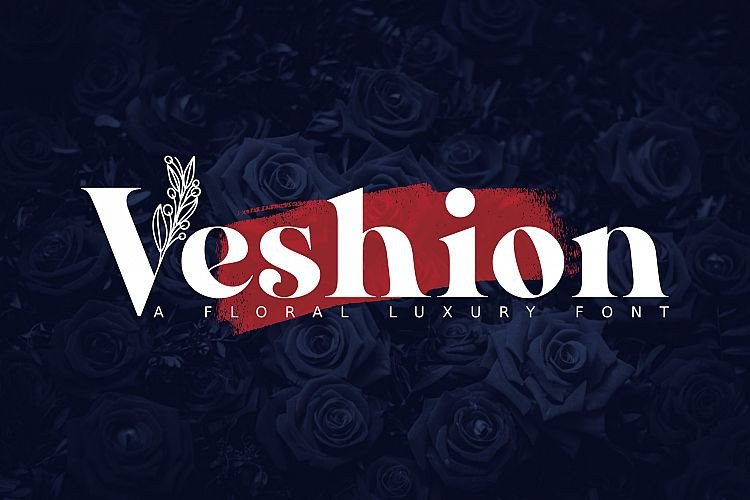
Veshion Serif Font
Say Hello Guy’s. Thank you for looking Veshion Font. This is a luxury serif font with a strong personality ideal for short text. Veshion Serif is an floral luxury font. It’s fashionable, elegant, decorative font. Floral ornament letters are ideal for your wedding monograms and logos, fashion product, herb, back to nature vibe, organic vibe, and many more.
Use this font for wedding invitations, branding, packaging, magazines, florist shops, social media, restaurant menus, greeting cards, headers and many more.